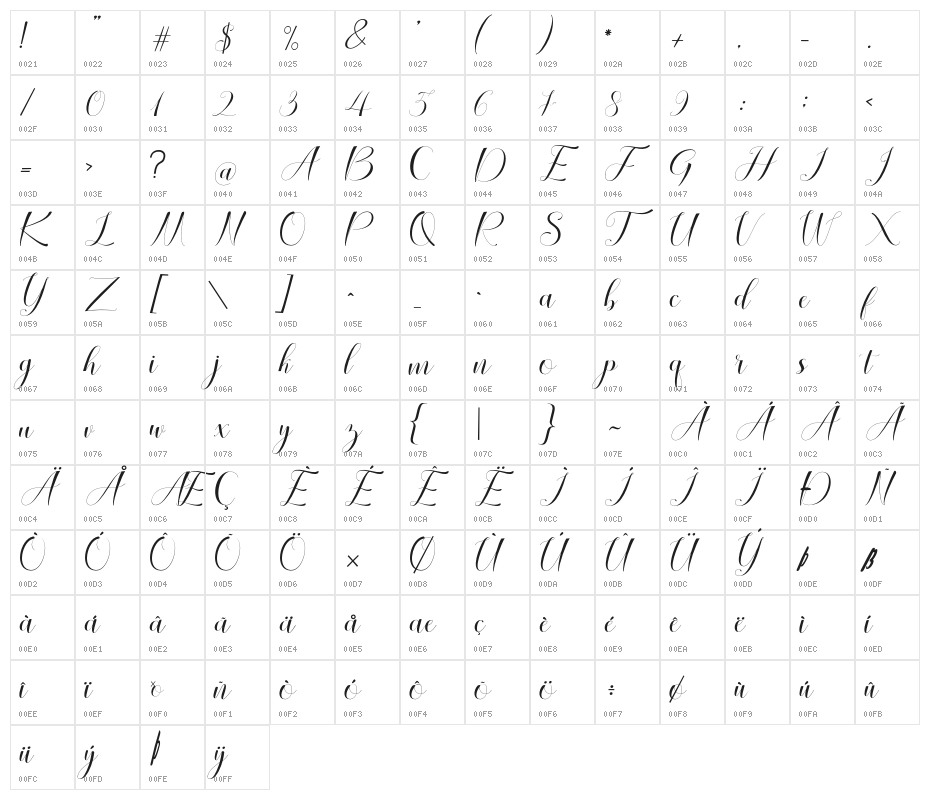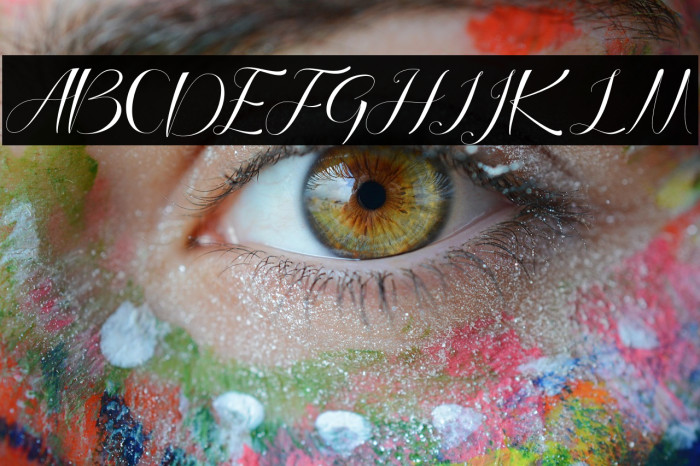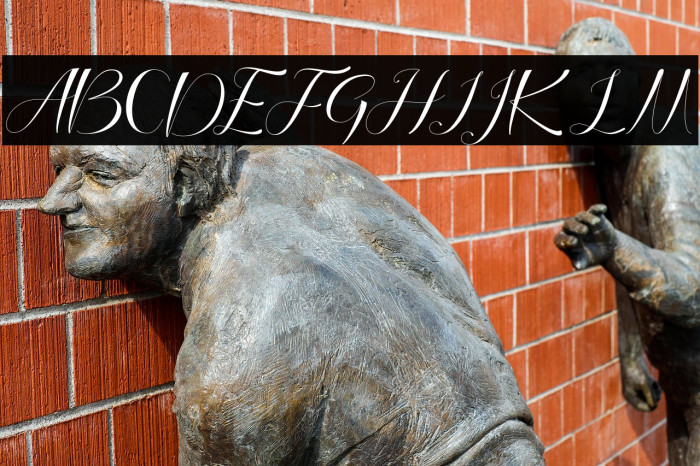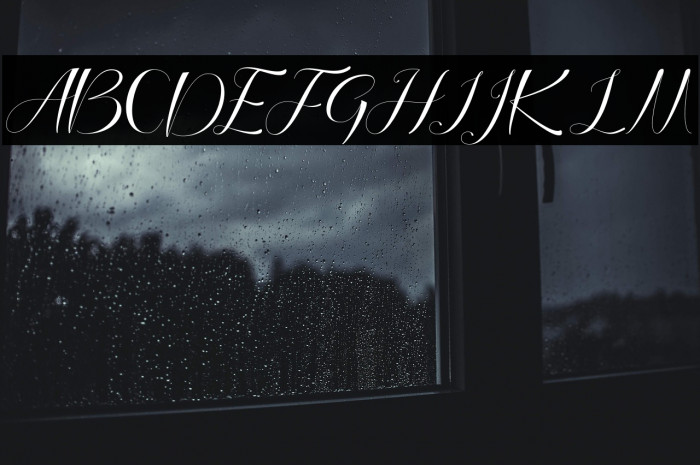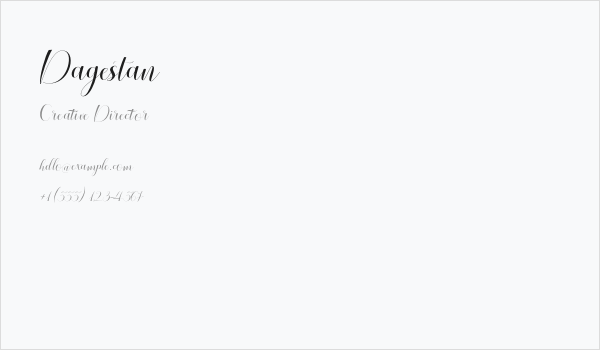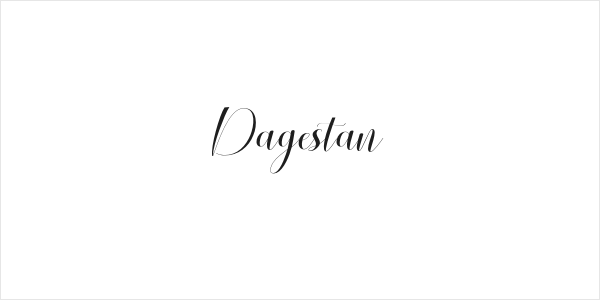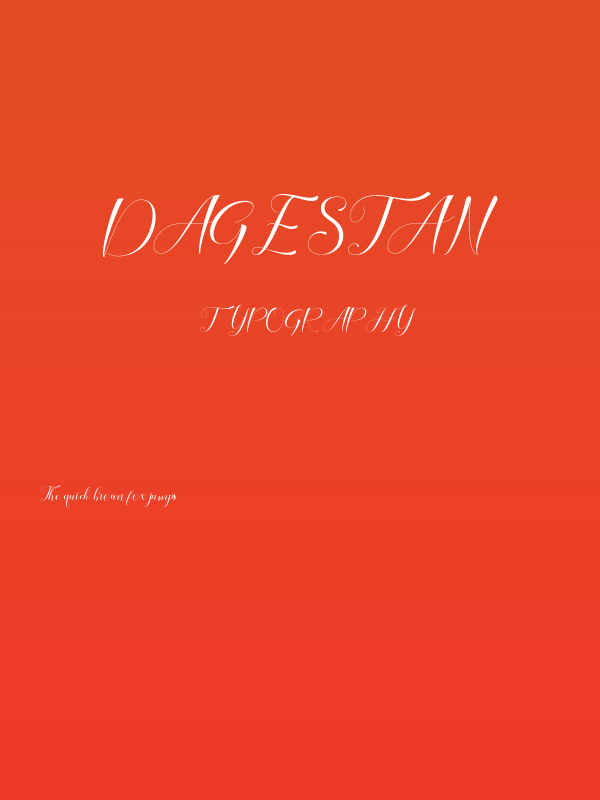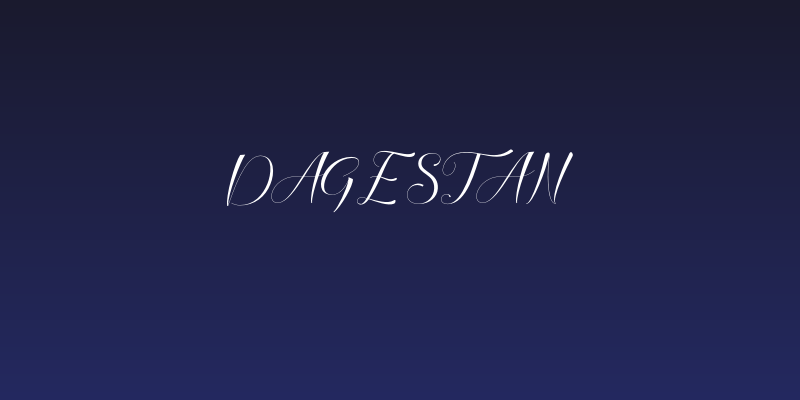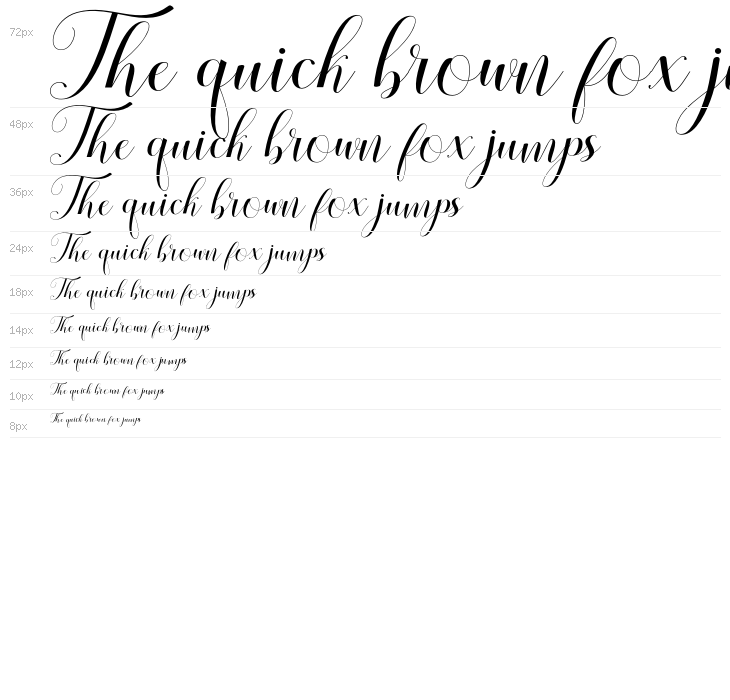
Dagestan Font
Dagestan Description
This elegant script font features a flowing, cursive style with high contrast between thick and thin strokes. The uppercase letters are characterized by their sweeping, graceful lines and loops, giving a sense of sophistication and fluidity. The lowercase letters maintain a consistent style, with smooth connections and a slightly more compact form. The numerals are designed with the same attention to detail, offering a harmonious look across all characters. Special characters are included, maintaining the font's overall aesthetic. This font is ideal for projects that require a touch of elegance and refinement.
| Proposed Projects | Ideal for wedding invitations, elegant branding, luxury packaging, and formal event materials. |